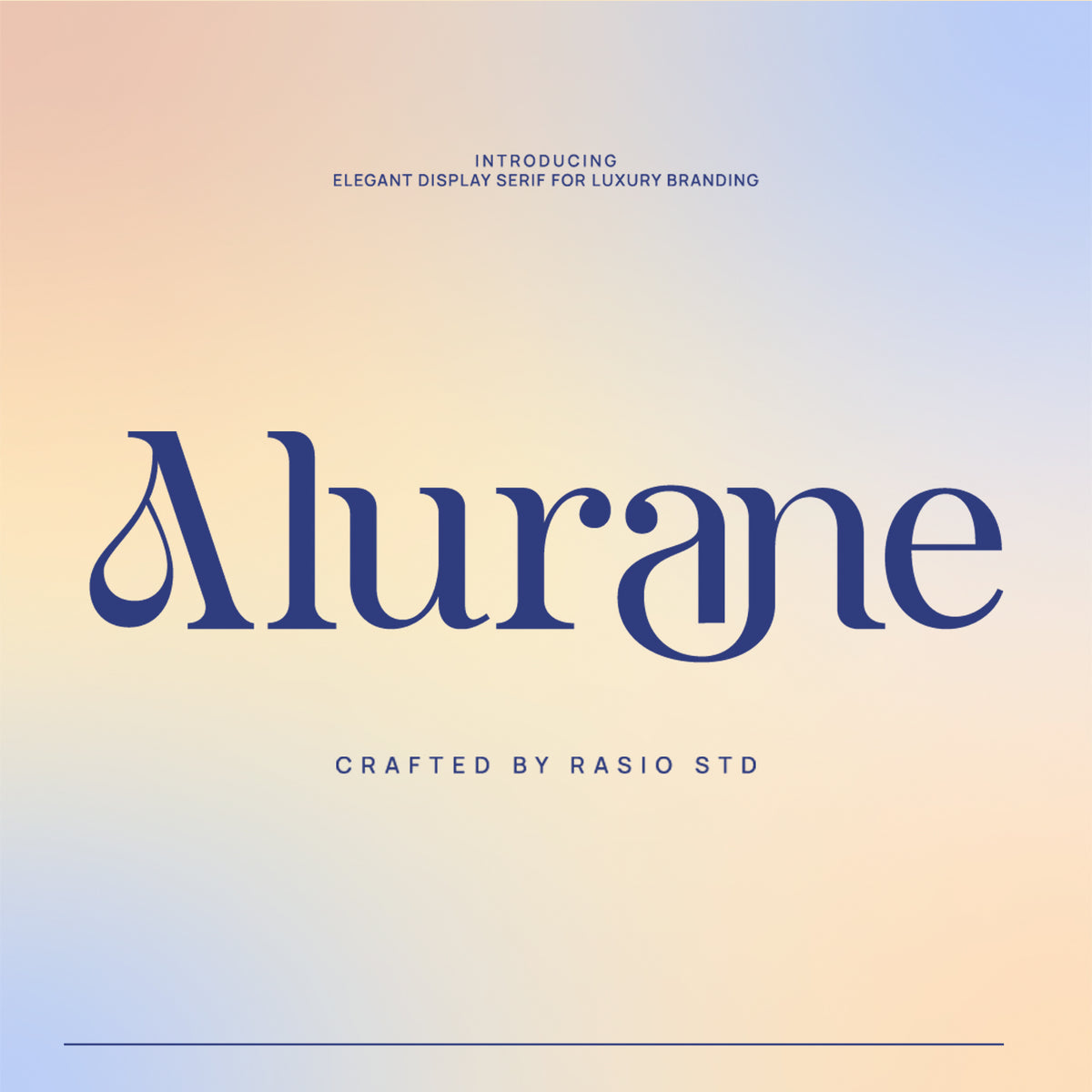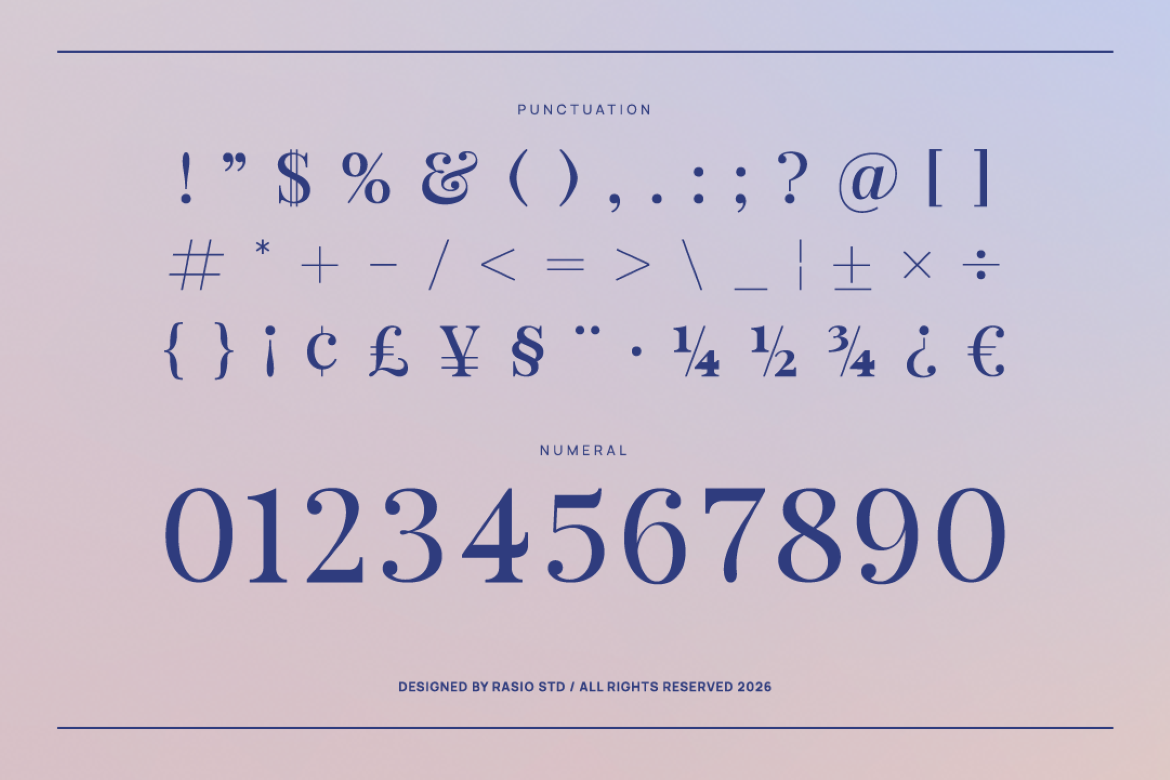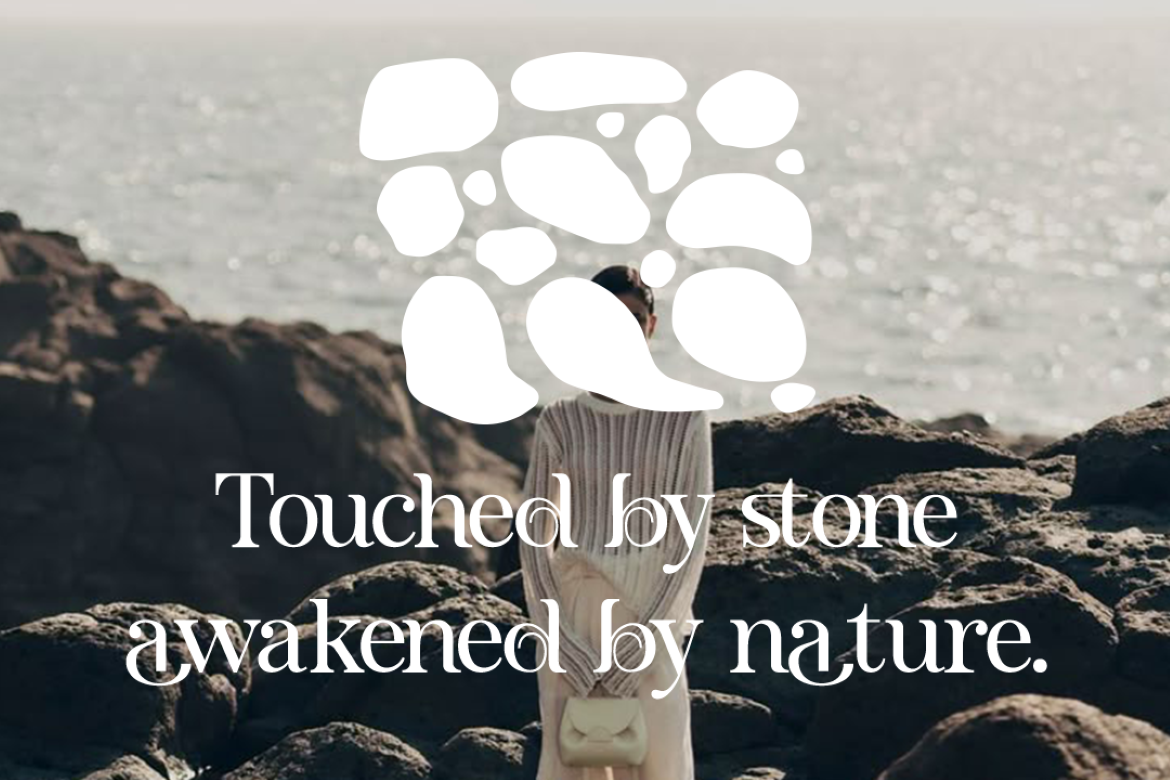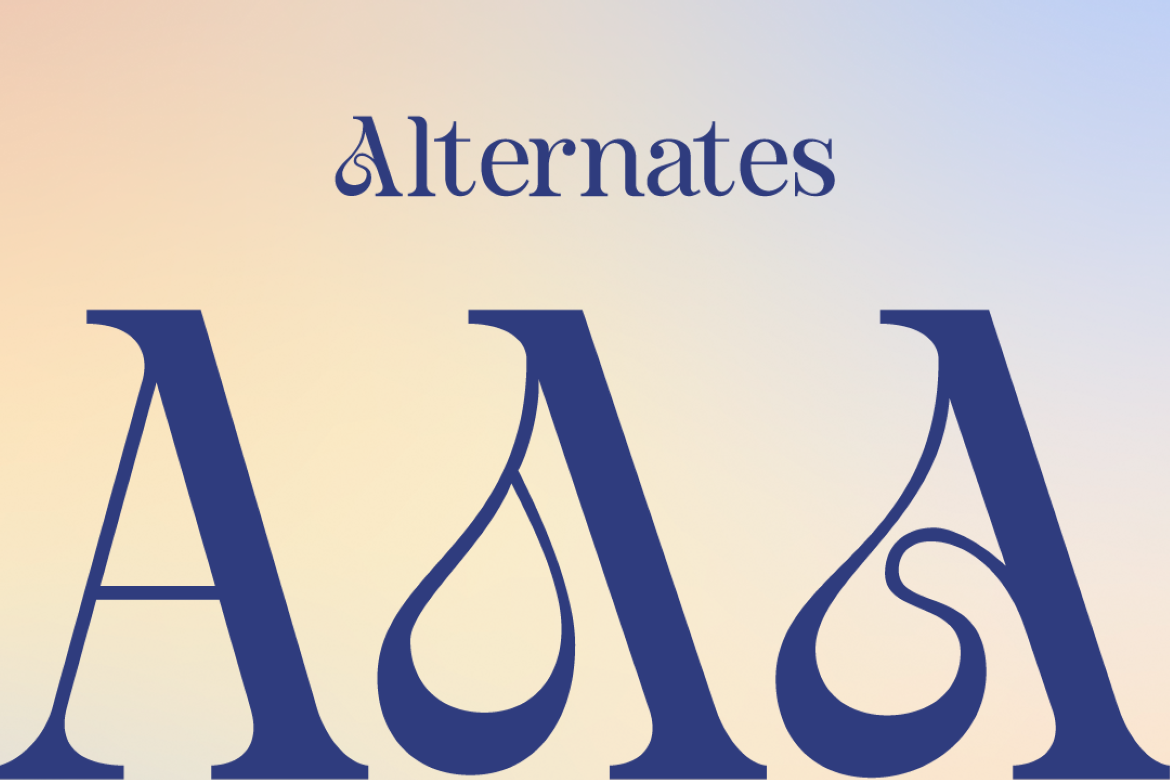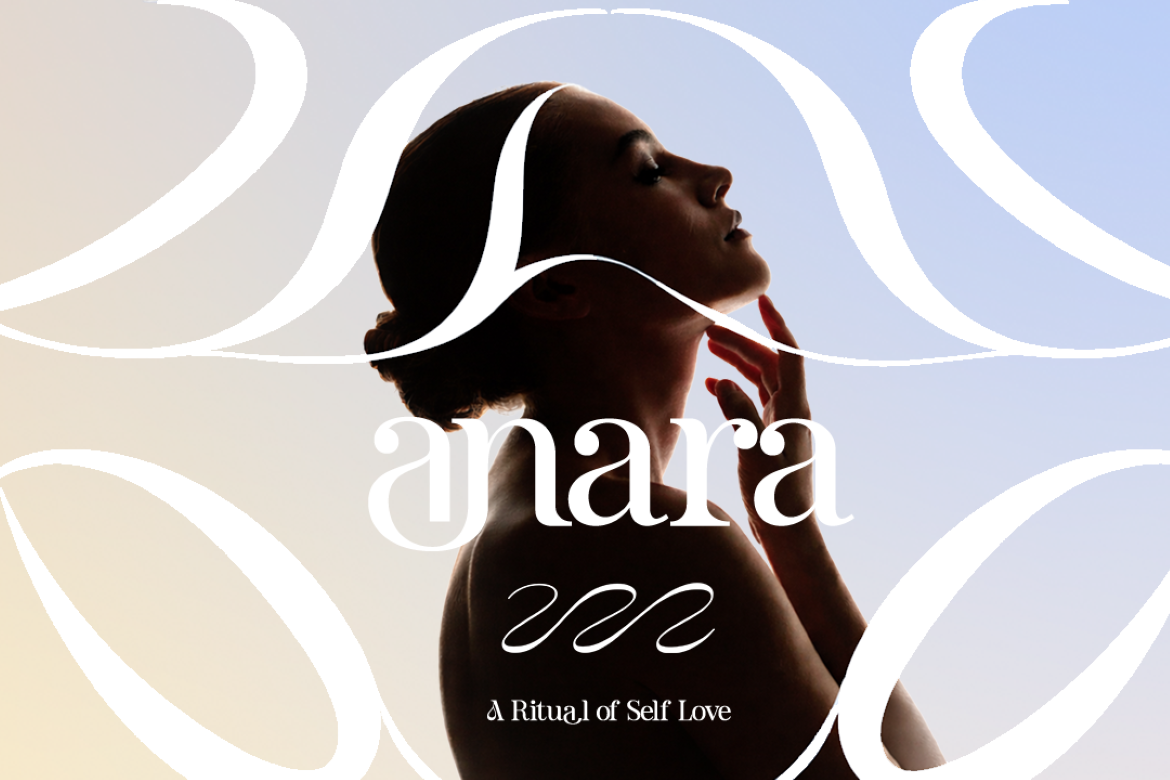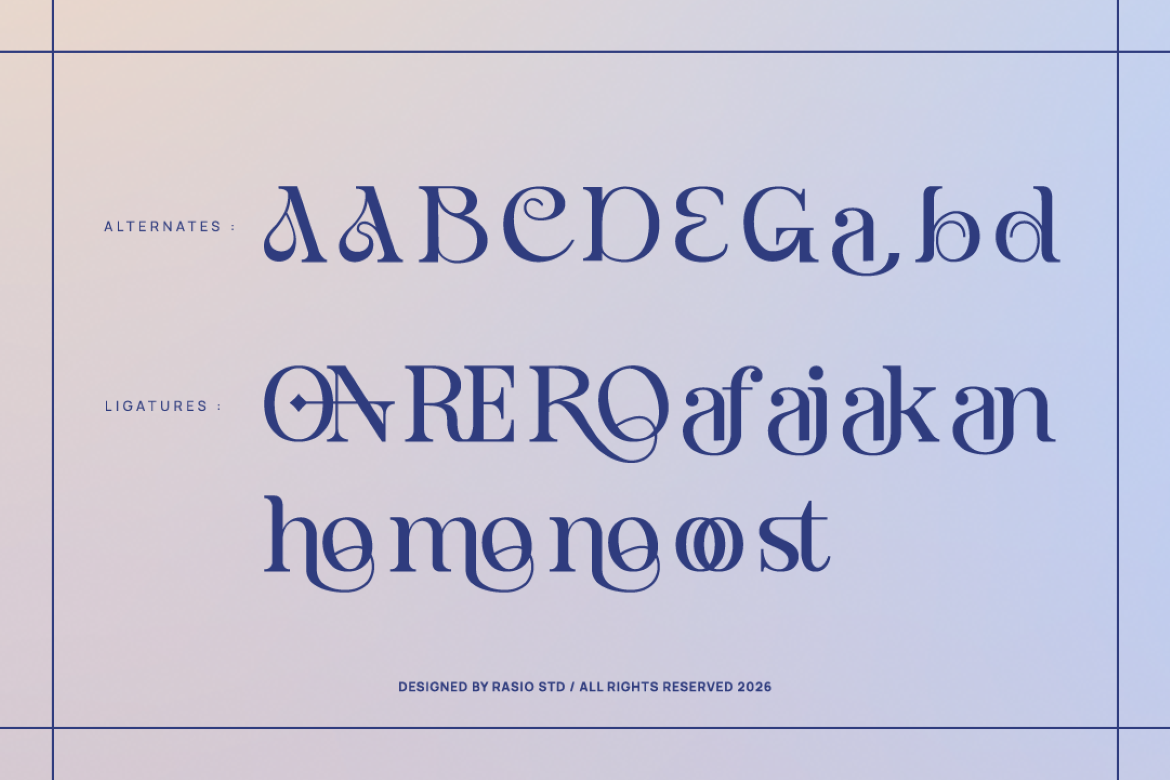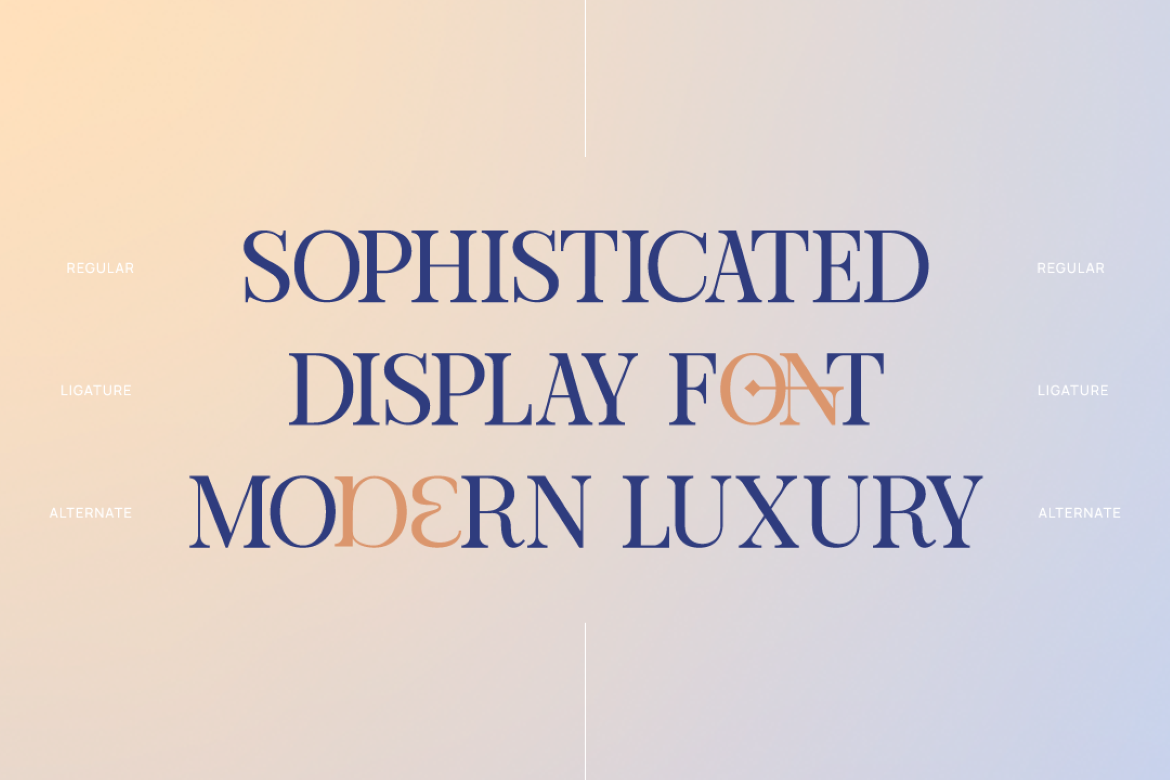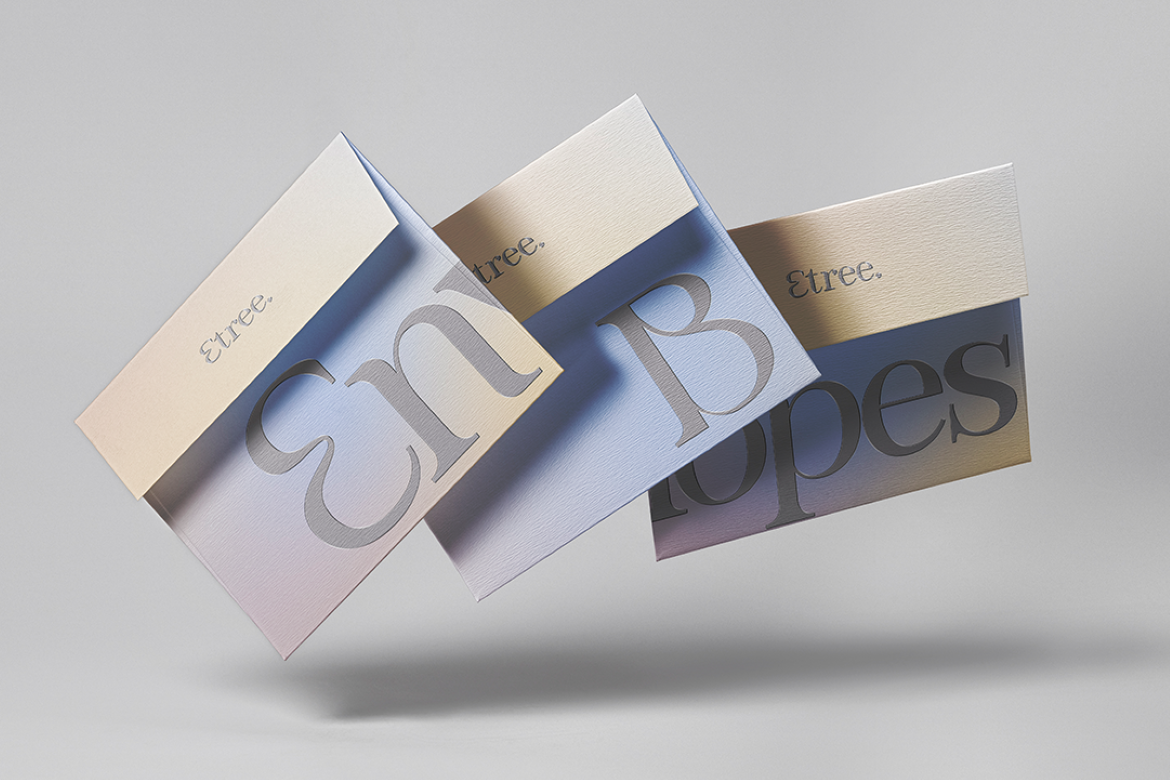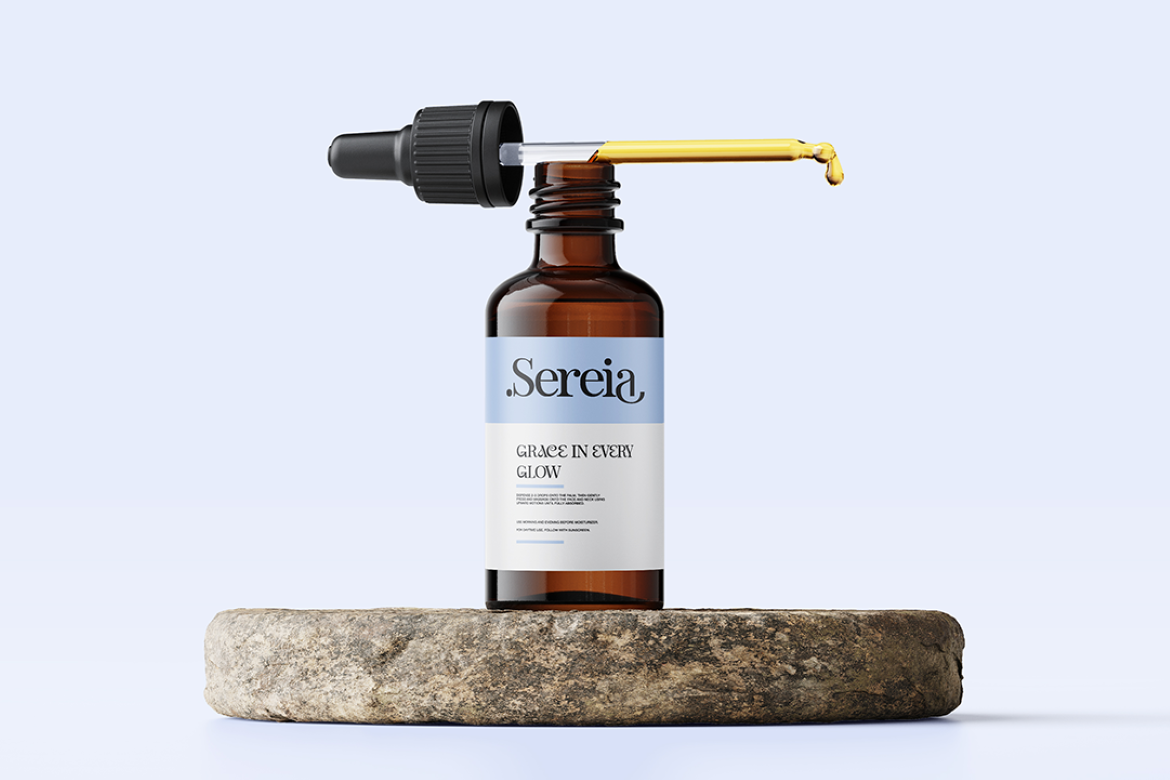
Alurane Elegant Display Serif Font
Alurane is an elegant display serif font crafted for luxury-focused visual design. It features refined serif structures, graceful curves, and distinctive alternates that add a sophisticated character to headlines and branding typography. The font includes uppercase and lowercase letters, numerals, punctuation, and stylistic alternates, making it suitable for expressive display use.
Relevance and Use Cases is perfect for projects that emphasize elegance, exclusivity, and refined visual identity. It works well for luxury brand identities, fashion editorials, beauty and jewelry branding, premium packaging, high-end product presentations, and sophisticated marketing visuals where expressive serif typography is required.
Alurane is a display serif font that includes uppercase and lowercase letters, numerals, punctuation, ligatures, and stylistic alternates. It is available in OTF, TTF, and WOFF formats.